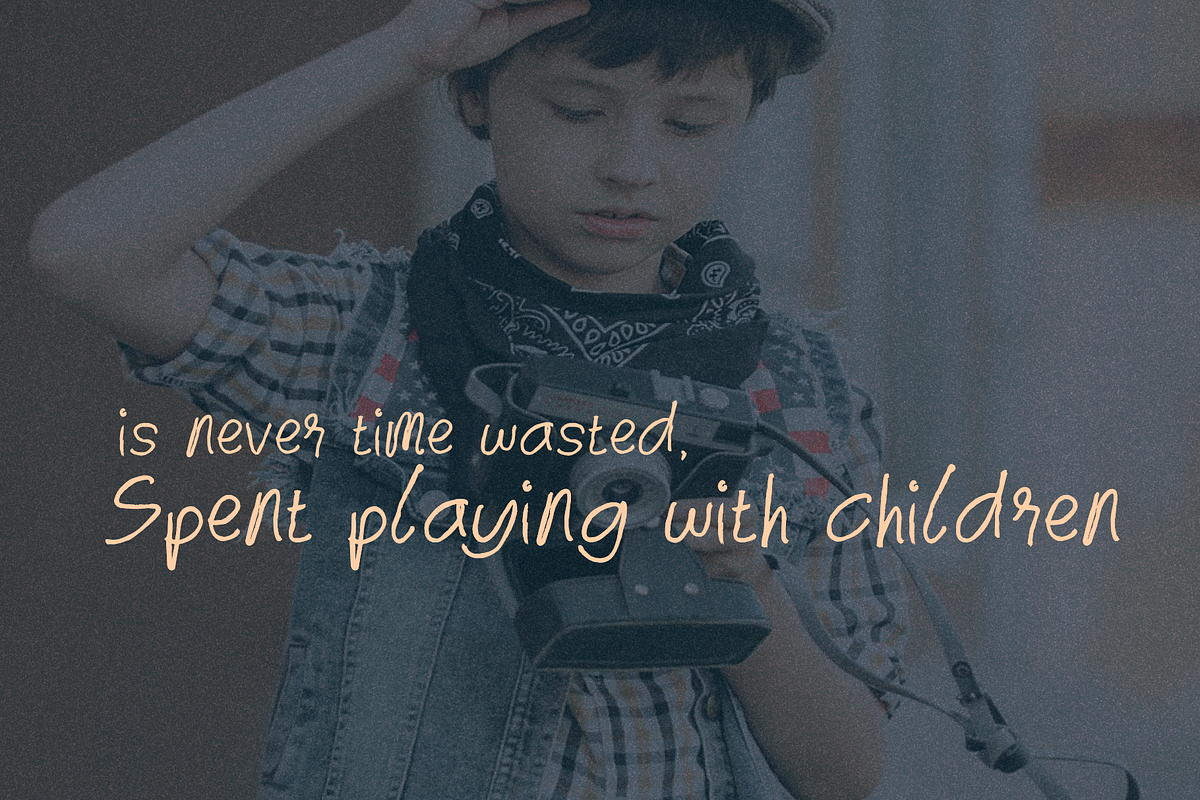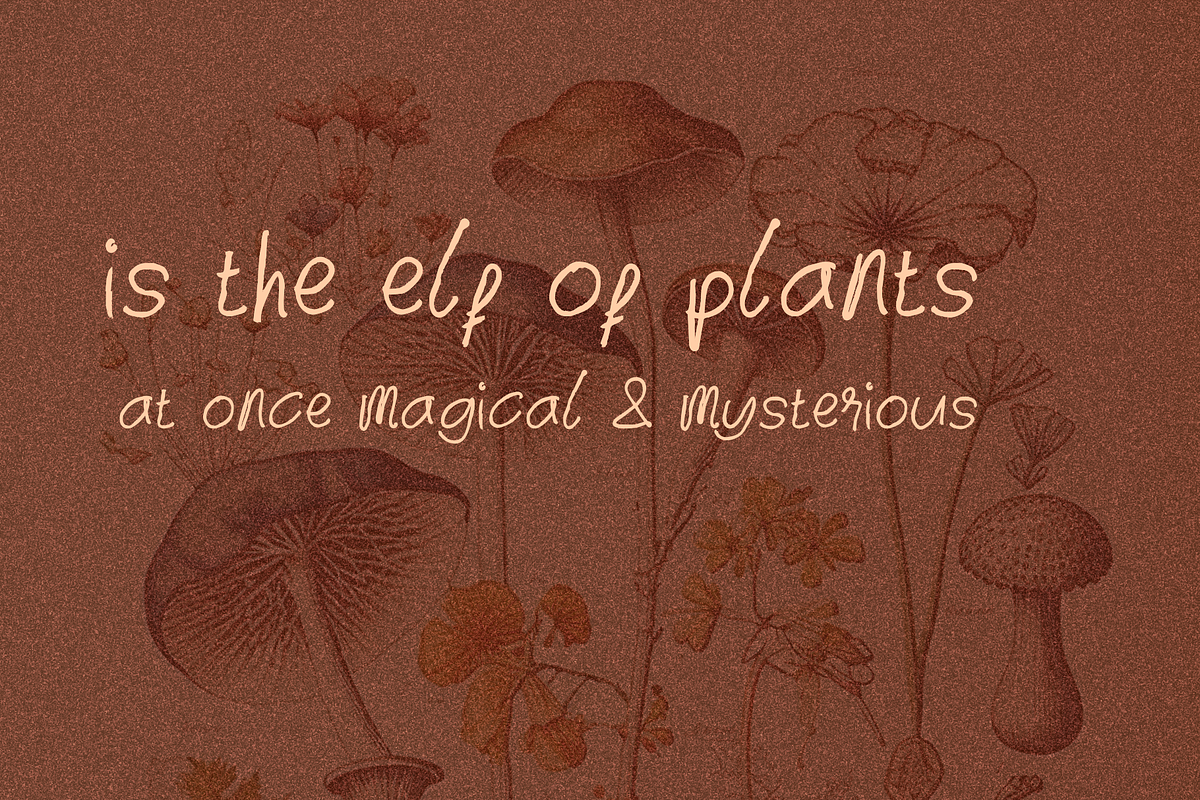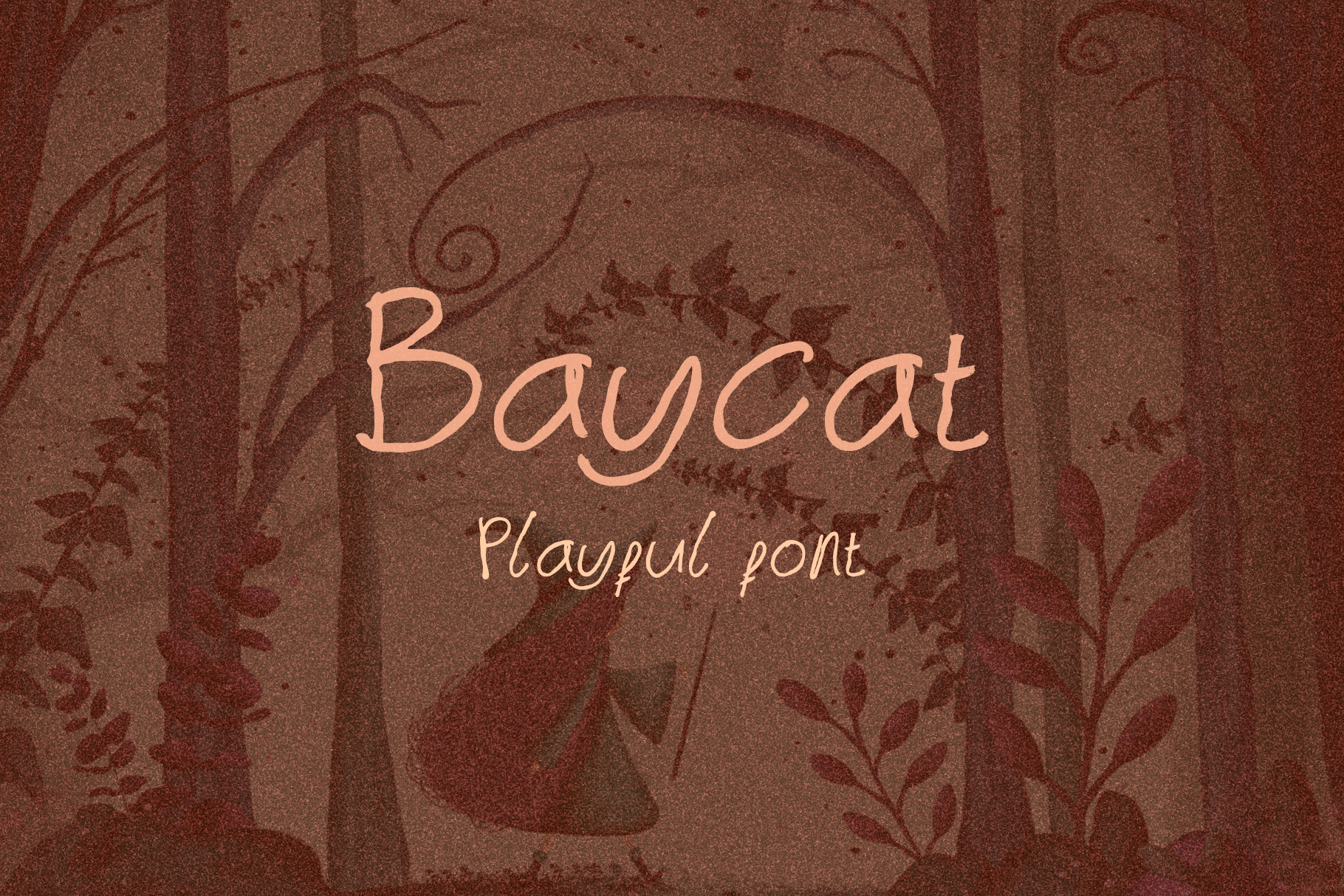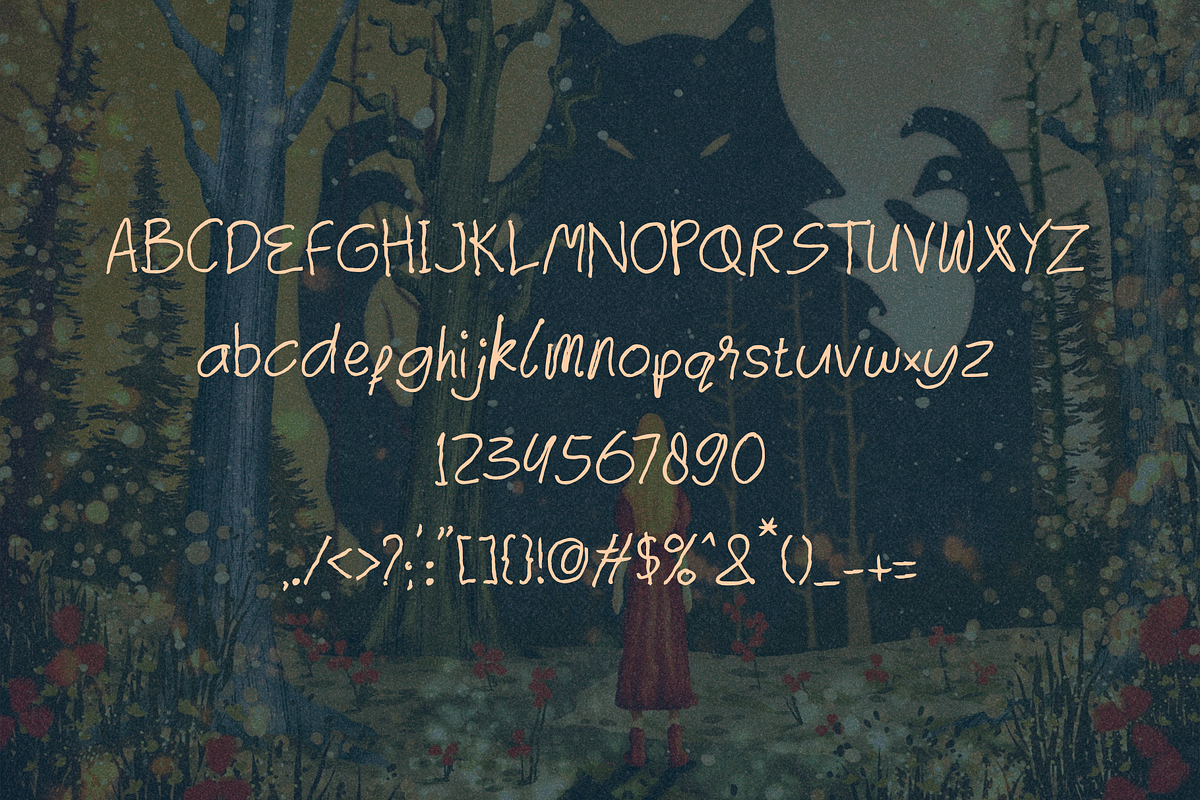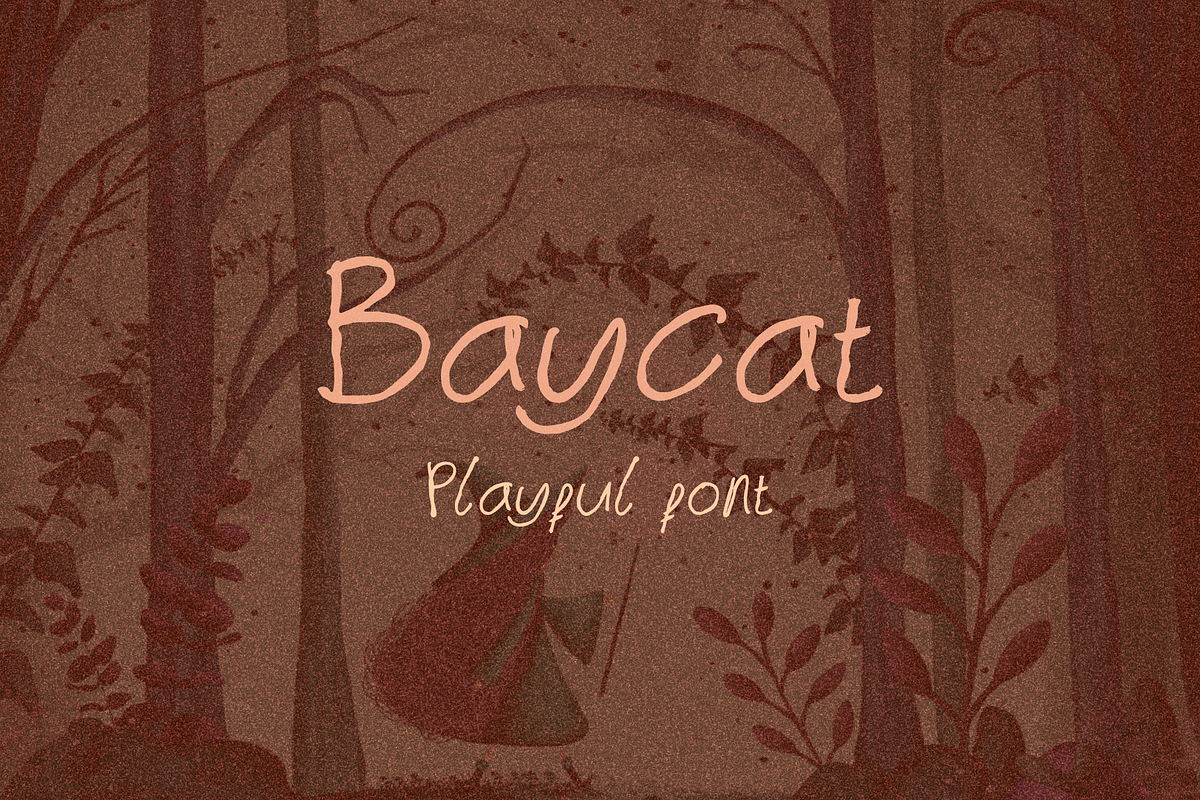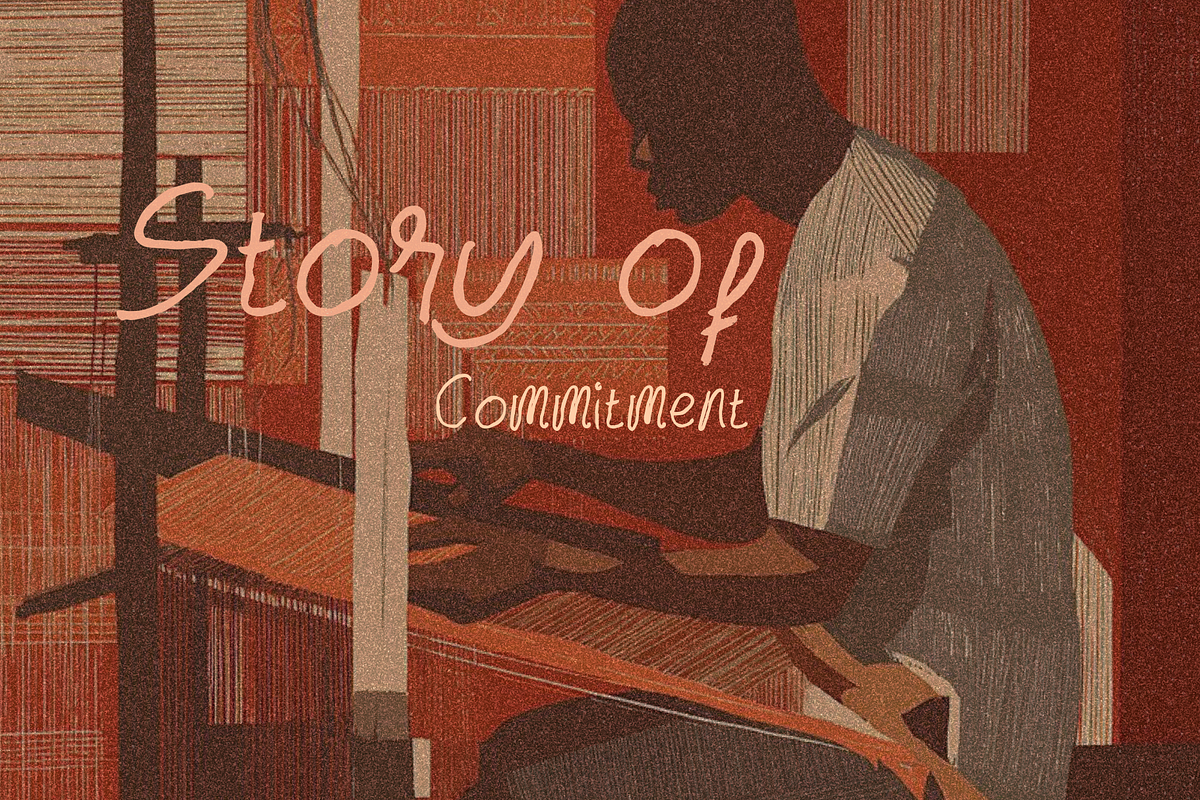
Baycat Handwritten Font
Baycat playful font is set of hand-drawn fonts, designed to mimic lively, imperfect and friendly lettering. It’s a charming choice for personal-feel logo designs, quotes, packaging, kid-friendly products, fun greeting cards, craft and more.